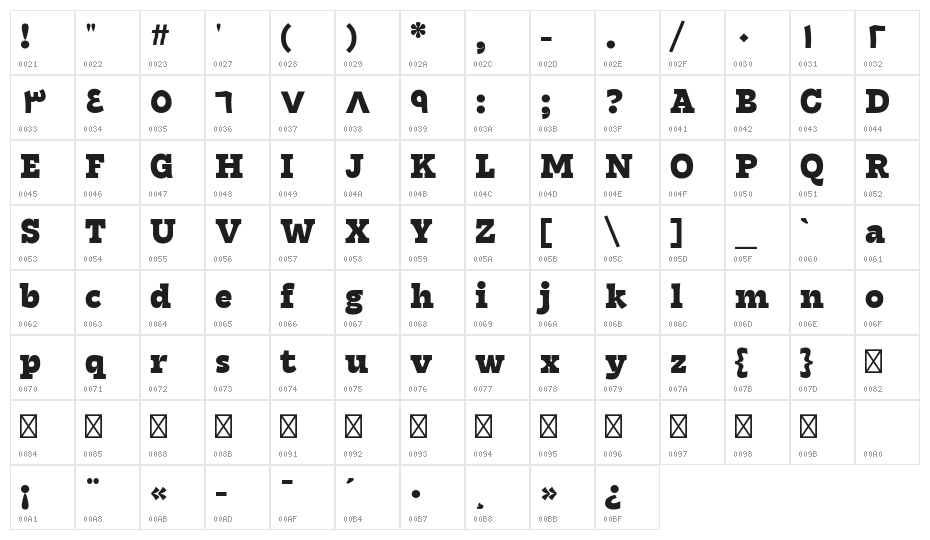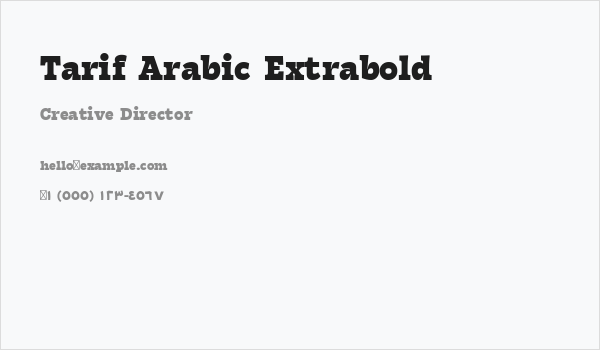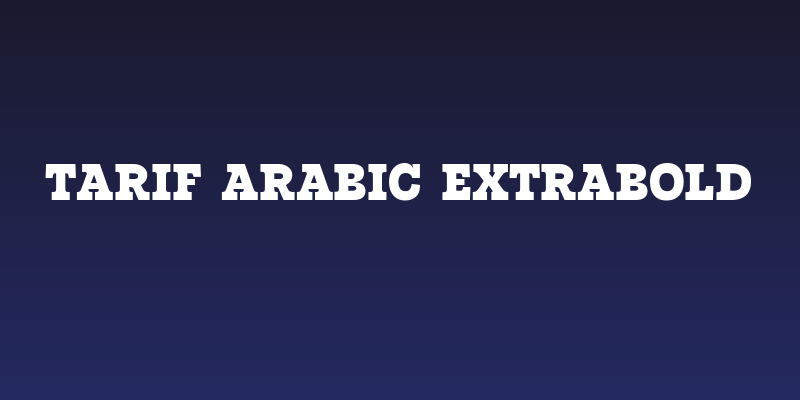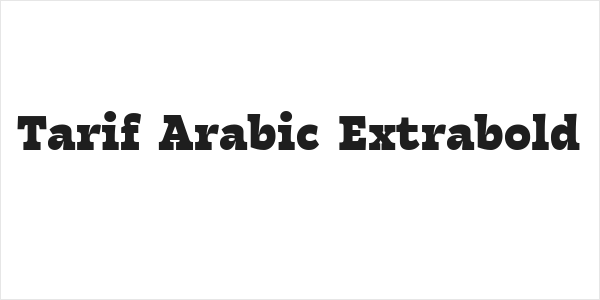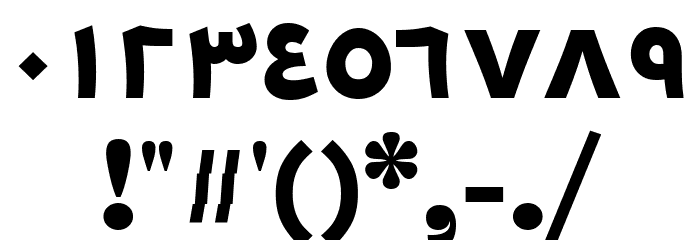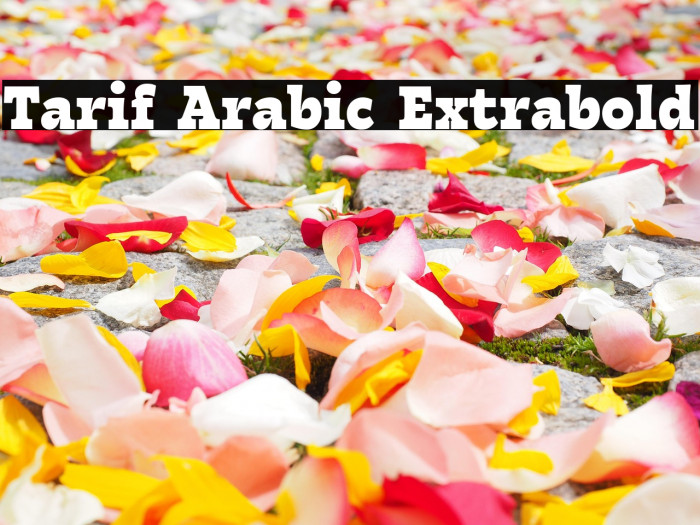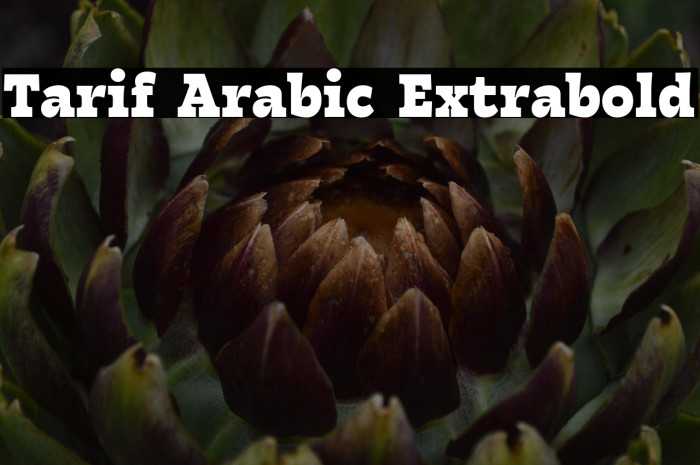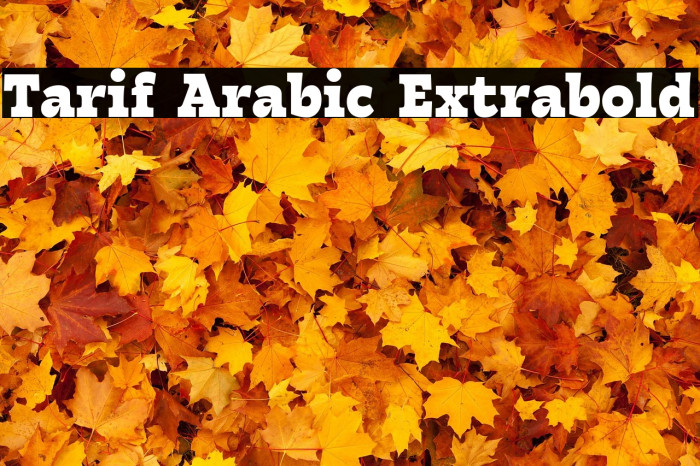
Tarif Arabic Extrabold Font
Tarif Arabic Extrabold Description
This font features a bold and robust design with thick strokes and a strong presence. The uppercase letters are solid and commanding, while the lowercase letters maintain a consistent weight, providing a harmonious balance. The numerals are clear and distinct, ensuring readability. Special characters are designed with the same boldness, making them stand out. The overall style is modern with a hint of vintage charm, suitable for impactful designs.
| Proposed Projects | Ideal for headlines, posters, branding, and any project requiring a strong visual impact. |